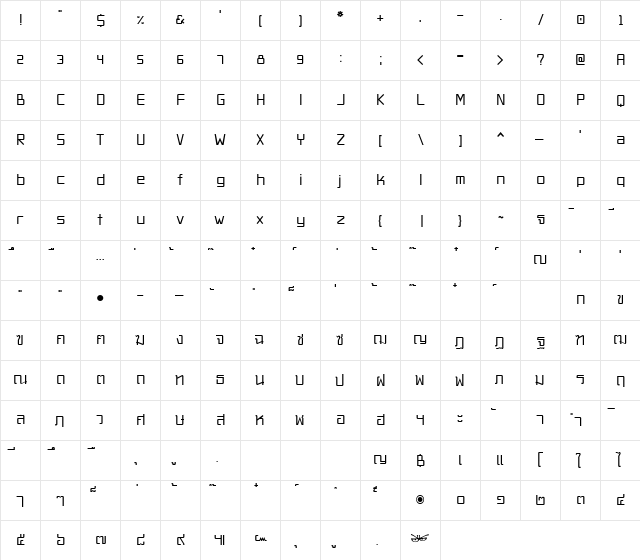
2006_iannnnnISO Regular
| Foundry | iannnnn.com |
| Designer | Prachya Singhto |
Design Context for 2006_iannnnnISO Typeface
2006_iannnnnISO is a composed and adaptable typeface that performs quietly and consistently across a wide range of design contexts.